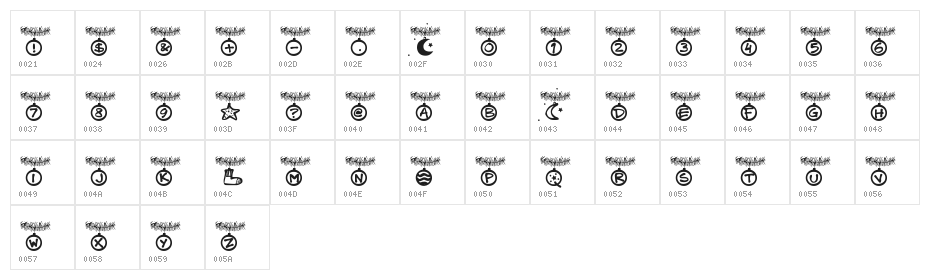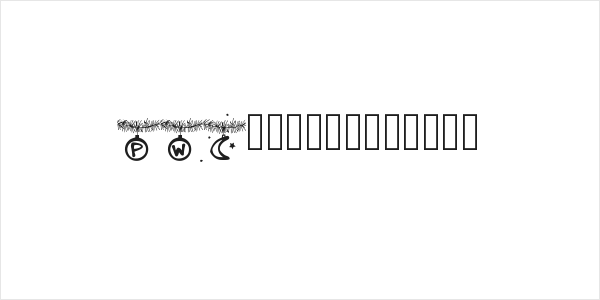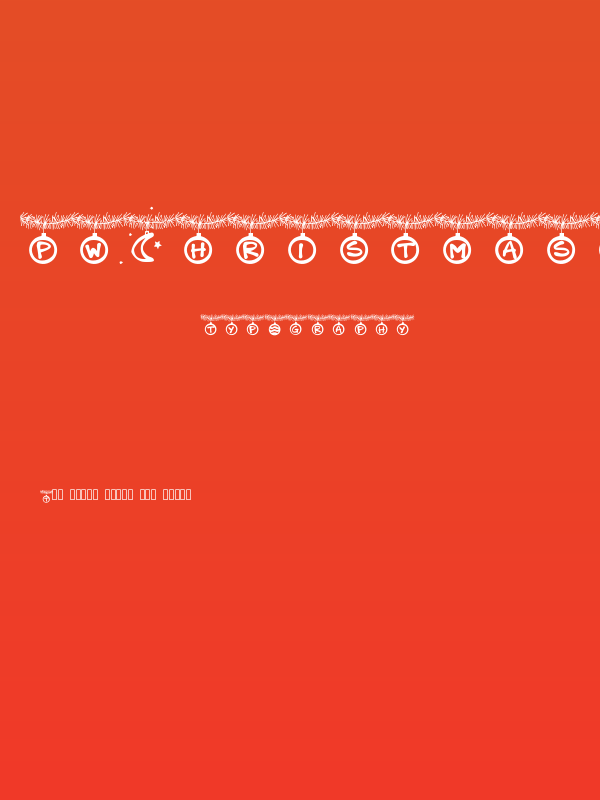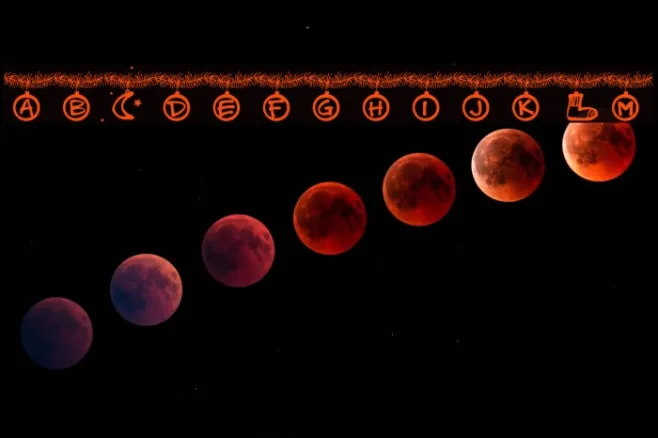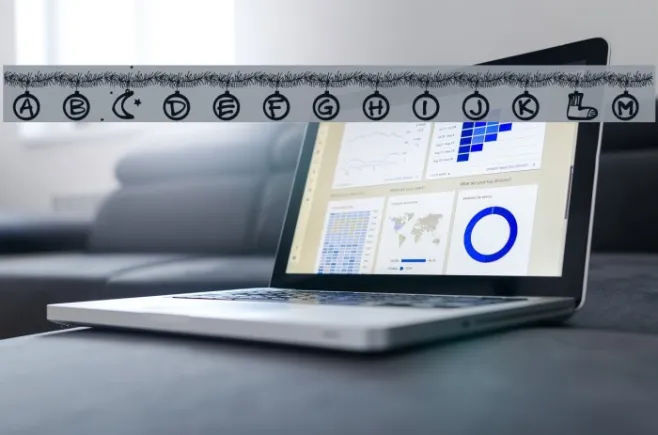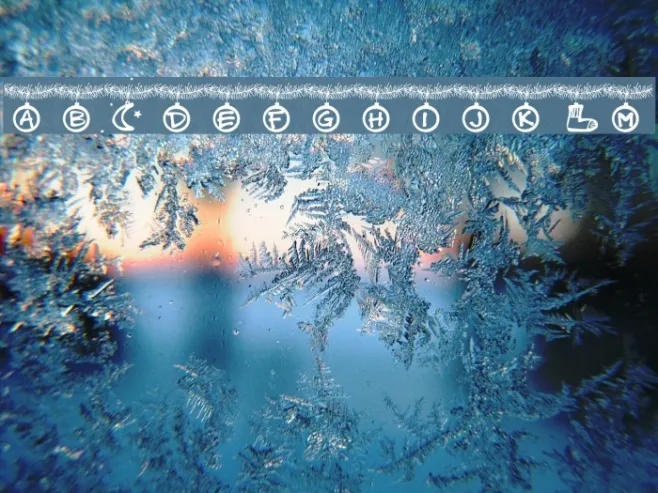
PWChristmastime Font
PWChristmastime Description
This festive font is designed with a playful and decorative style, perfect for holiday-themed projects. Each character is encased in a circular ornament, adding a whimsical touch reminiscent of Christmas decorations. The uppercase and lowercase letters, along with numbers and special characters, are adorned with subtle festive elements like stars and crescent moons. The overall design is bold and eye-catching, making it ideal for creating a joyful and celebratory atmosphere in any design. The font's unique style captures the essence of the holiday season, making it a great choice for greeting cards, party invitations, and seasonal advertisements.
| Proposed Projects | Ideal for Christmas cards, holiday invitations, festive banners, and seasonal marketing materials. |